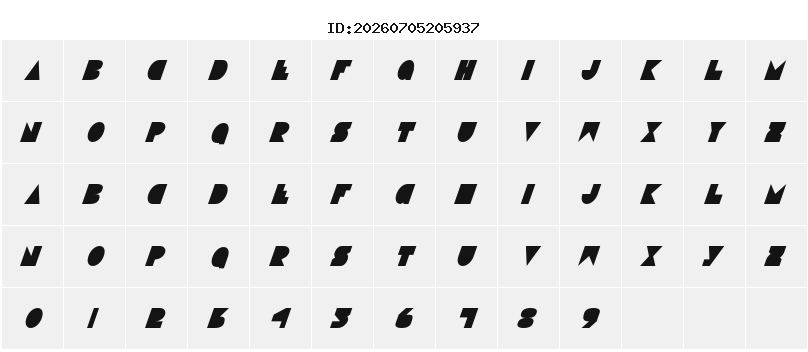
Disco Deck Condensed Italic Preview
• Font Name: Disco Deck Condensed Italic
• Font Style: Condensed Italic
• Font ID: Disco Deck Condensed Italic
• Full Font Name: Disco Deck Condensed Italic
• PostScript Name: DiscoDeckCondensedItalic
About Disco Deck Condensed Italic.ttf
Disco Deck Condensed Italic.ttf is a modern, elegant sans-serif font designed for ultimate readability and visual harmony. Perfect for branding, headlines, web design, and print materials.